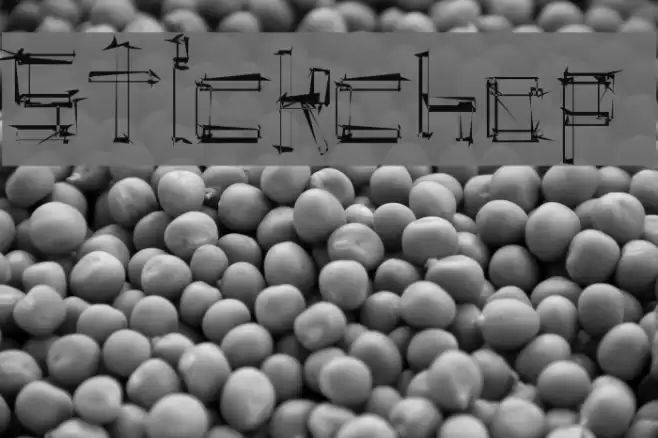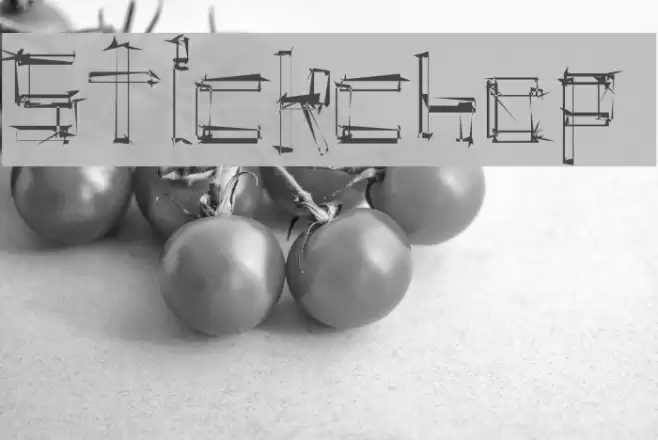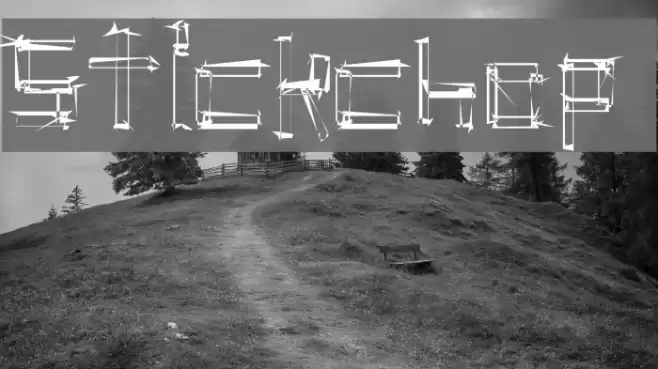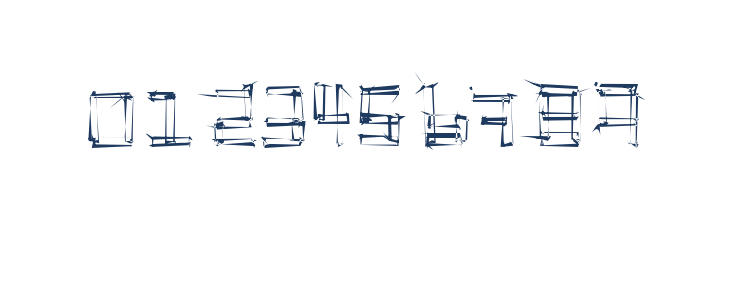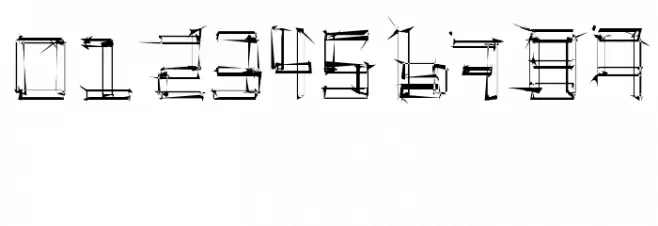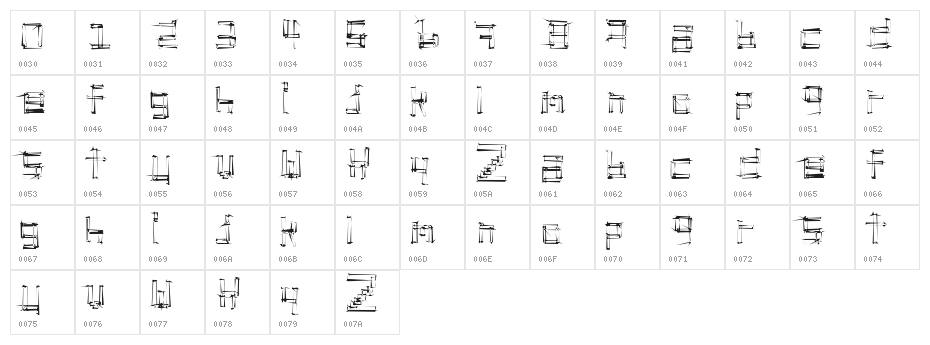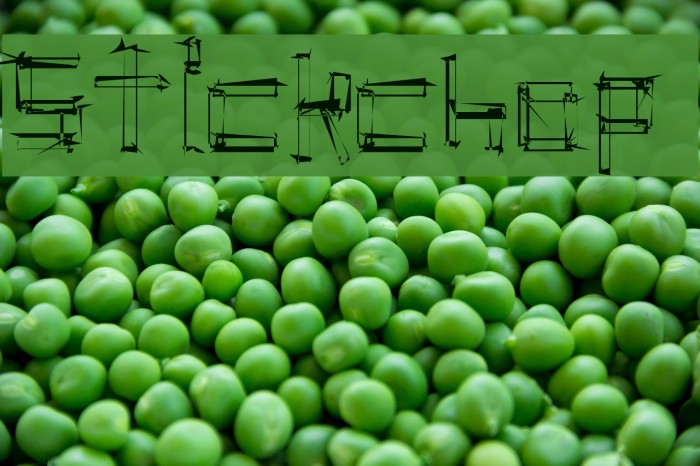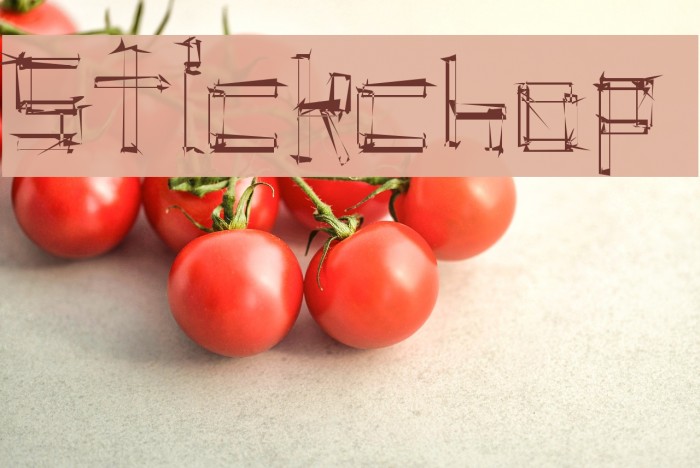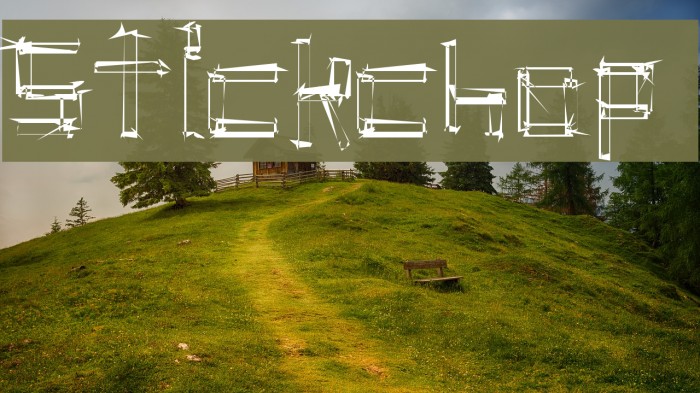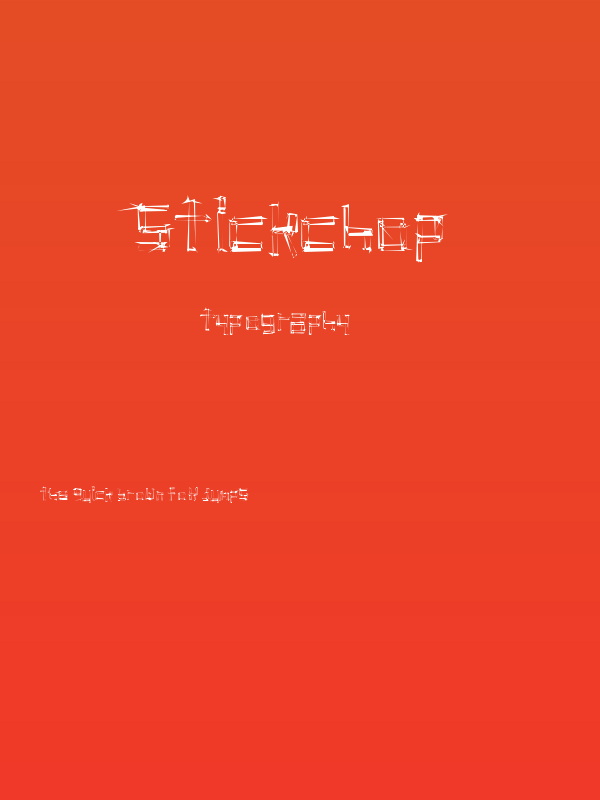
stickchop Font
stickchop Description
This font features a highly decorative and abstract design, characterized by its angular and geometric shapes. Each character is constructed with a series of lines and arrows, giving it a dynamic and mechanical appearance. The font's intricate design elements create a sense of movement and complexity, making it stand out as a unique and artistic choice. The characters are uniform in height but vary in width, contributing to its distinctive style. This font is not suited for body text due to its elaborate design but can be effectively used for creative projects where a bold statement is desired.
A decorative and abstract font with angular, geometric shapes and dynamic line elements from Uncategorized fonts.
- Proposed Projects: Ideal for use in graphic design projects, posters, album covers, and any creative work that requires a bold and artistic touch.
- Overall Style: Modern, Decorative